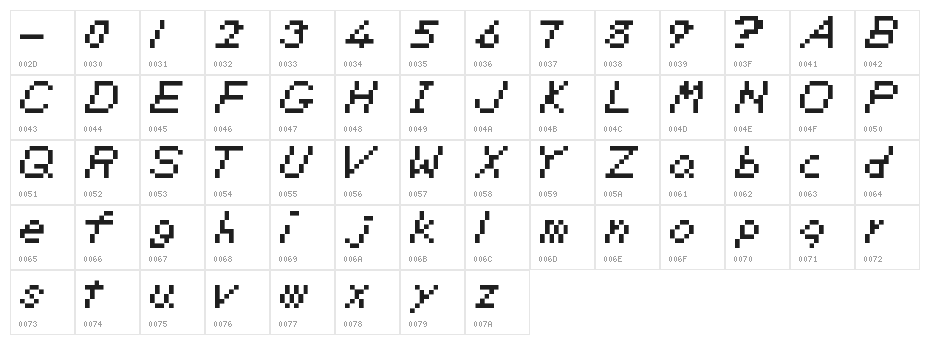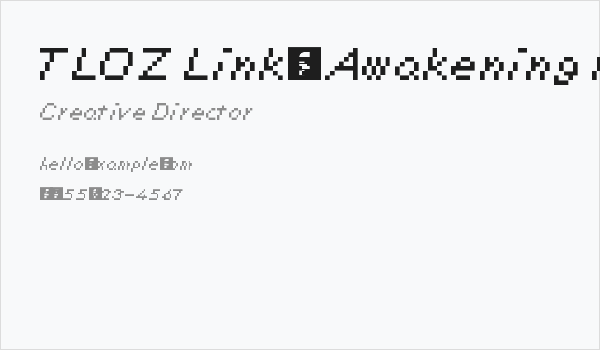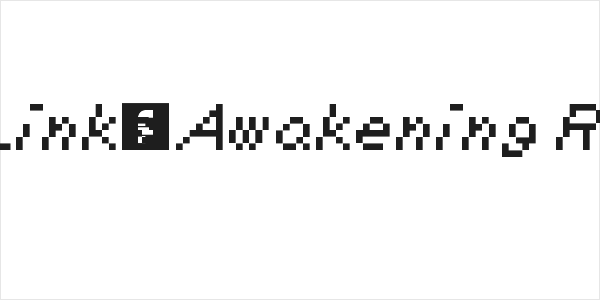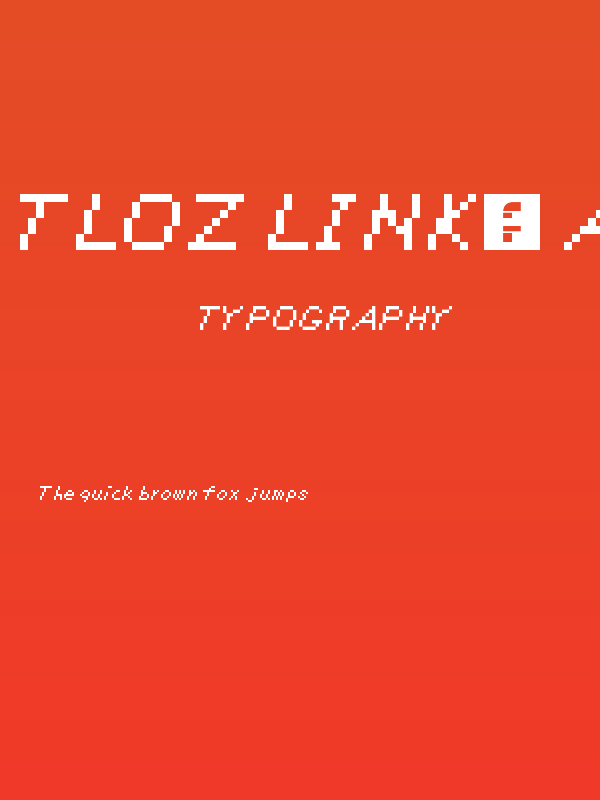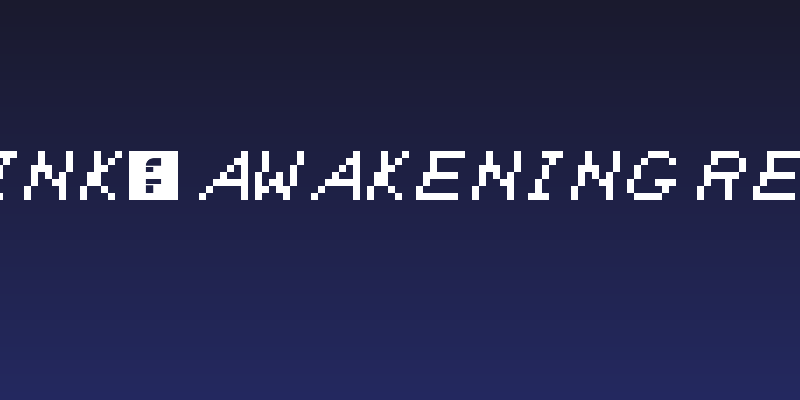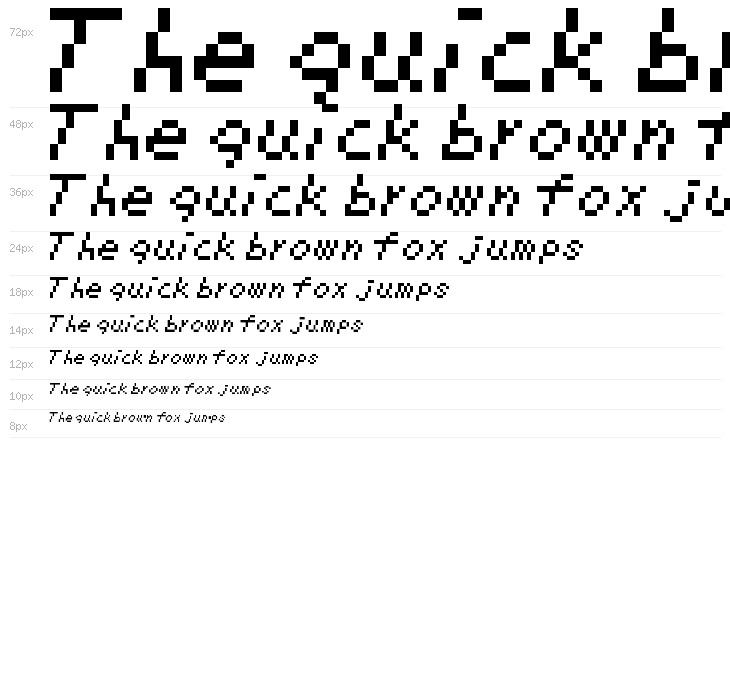
TLOZ Link's Awakening Regular Font
TLOZ Link's Awakening Regular Description
This font features a pixelated, retro style reminiscent of classic video game graphics. Each character is composed of small, square blocks, giving it a distinct, nostalgic appearance. The uppercase and lowercase letters maintain a consistent blocky structure, with slight variations in height and width to distinguish between them. Numbers and special characters follow the same pixelated design, ensuring uniformity across all glyphs. The font's playful and vintage aesthetic makes it ideal for projects that aim to evoke a sense of nostalgia or pay homage to early digital art and gaming.
Overall StyleVintage
Proposed ProjectsIdeal for video game design, retro-themed posters, digital art projects, and nostalgic branding.